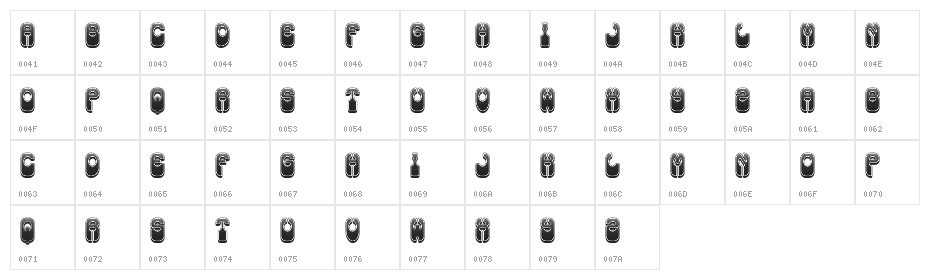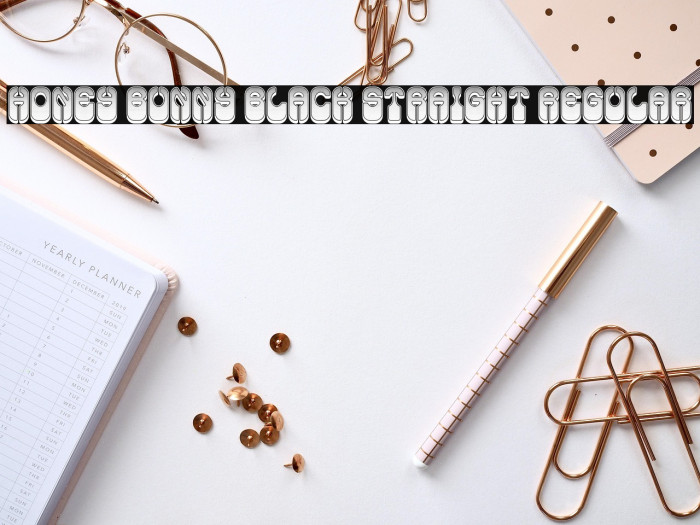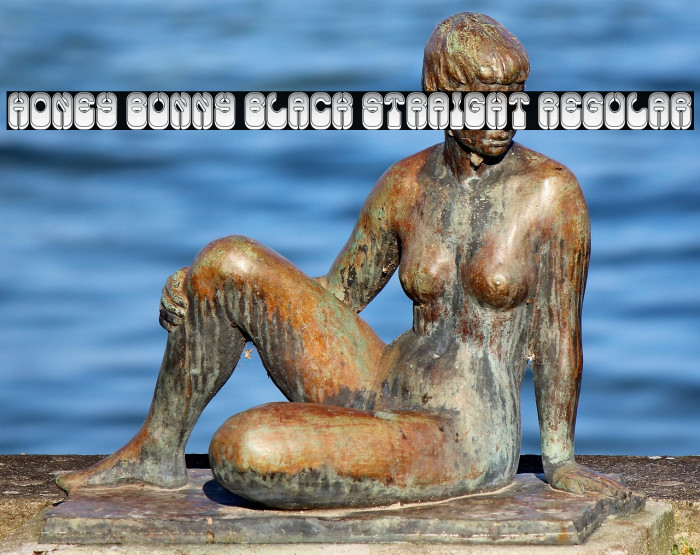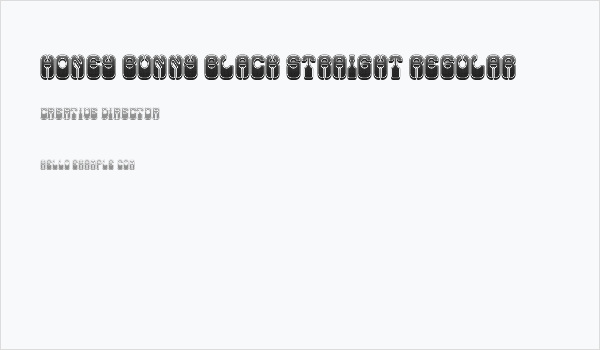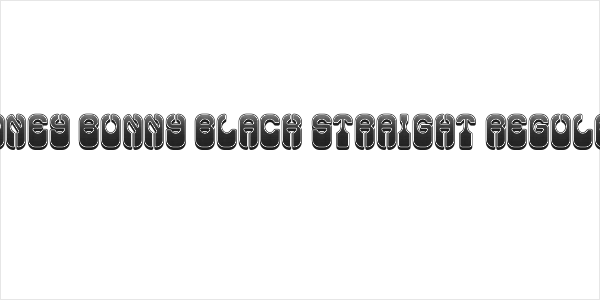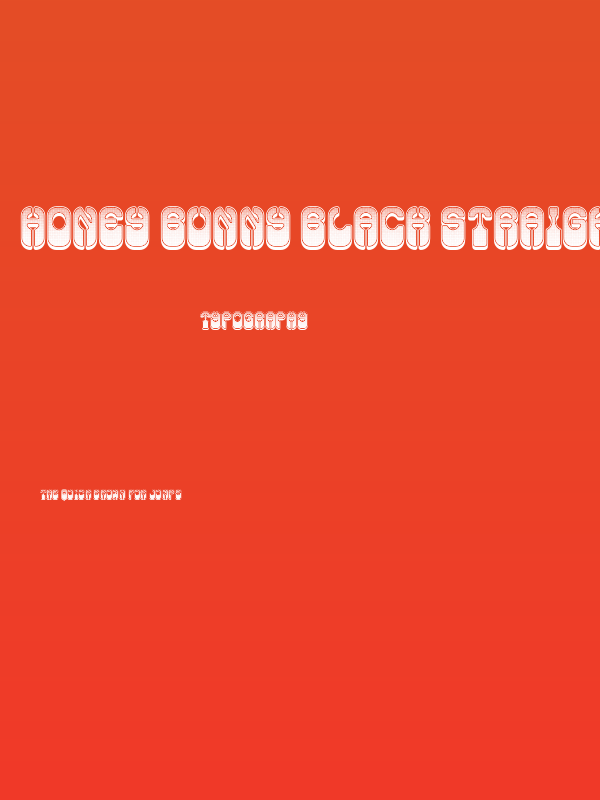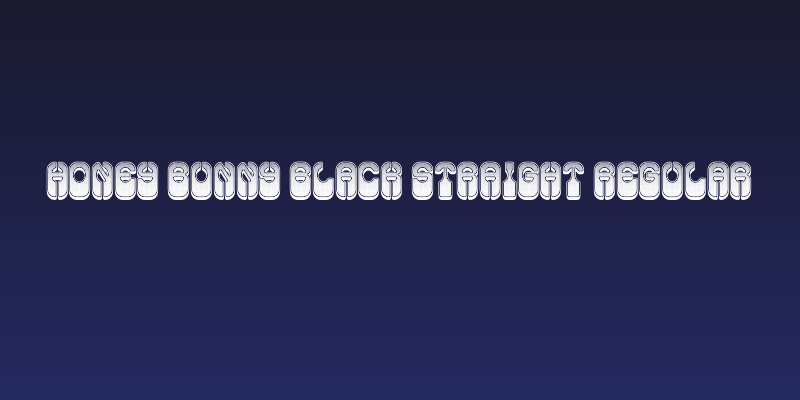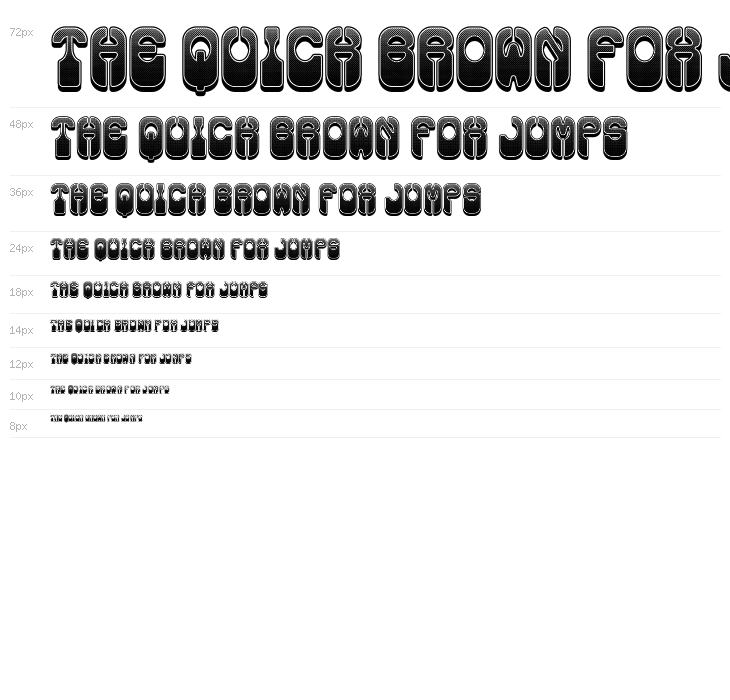
Honey Bunny Black Straight Regular Font
Honey Bunny Black Straight Regular Description
This font features a bold, playful design with a three-dimensional effect that gives each character a unique, eye-catching appearance. The letters are thick and rounded, with a grid-like texture that adds depth and interest. The style is reminiscent of retro or vintage aesthetics, making it suitable for projects that require a touch of nostalgia. The characters are evenly spaced, ensuring readability while maintaining a distinct visual impact. This font is ideal for creating standout headlines, posters, or branding materials that need to capture attention and convey a sense of fun and creativity.
| Proposed Projects | Ideal for retro-themed posters, eye-catching headlines, creative branding, and playful graphic designs. |